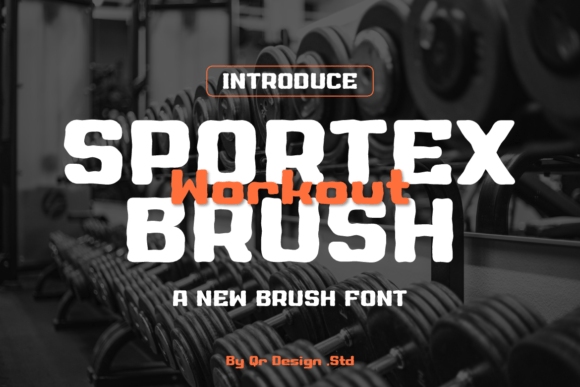
Sportex Workout Brush Font: The Ultimate Choice for Designers
In the world of design, fonts play a crucial role in conveying the message and tone of a project. With millions of fonts available, finding the perfect one can be overwhelming. However, if you’re looking for a bold, all-caps sans serif font that exudes trendiness, look no further than Sportex Workout Brush Font. In this article, we’ll dive into the features, benefits, and uses of Sportex Workout Brush Font, and explore why it’s a must-have for designers.
What is Sportex Workout Brush Font?
Sportex Workout Brush Font is a modern sans serif font that boasts a bold and eye-catching design. Its unique brush-like texture gives it a distinctive look that’s perfect for making a statement. The font features clean lines, sharp edges, and a confident demeanor that makes it perfect for a wide range of design projects.
Key Features of Sportex Workout Brush Font
- Bold and eye-catching design: Sportex Workout Brush Font is designed to grab attention. Its bold and all-caps design makes it perfect for headlines, titles, and emphasis text.
- Brush-like texture: The font features a unique brush-like texture that gives it a distinctive look and feel.
- Clean lines and sharp edges: The font’s clean lines and sharp edges make it easy to read and perfect for digital and print designs.
- Trendiness: Sportex Workout Brush Font is designed to be trendy and modern, making it perfect for designers who want to stay ahead of the curve.
- All-caps design: The font is designed specifically for all-caps text, making it perfect for titles, headlines, and emphasis text.
Benefits of Using Sportex Workout Brush Font
Sportex Workout Brush Font offers a range of benefits for designers, including:
- Versatility: The font can be used for a wide range of design projects, from digital designs to print materials.
- Readability: The font’s clean lines and sharp edges make it easy to read, even at small sizes.
- Uniqueness: The font’s brush-like texture and bold design make it stand out from more traditional fonts.
- Time-saving: The font’s all-caps design means you don’t have to worry about formatting text, saving you time and effort.
Uses of Sportex Workout Brush Font
Sportex Workout Brush Font is perfect for a wide range of design projects, including:
- Crafting: Use the font to create eye-catching titles and headings for your crafting projects.
- Digital designing: The font is perfect for digital designs, including social media graphics, blog posts, and website headers.
- Presentations: Use Sportex Workout Brush Font to create bold and eye-catching titles and headings for your presentations.
- Greeting cards making: The font is perfect for creating eye-catching titles and headings for greeting cards and invitations.
Tips for Using Sportex Workout Brush Font
Here are some tips for getting the most out of Sportex Workout Brush Font:
- Use it sparingly: While Sportex Workout Brush Font is bold and eye-catching, it can be overwhelming if used too much. Use it sparingly to create emphasis and draw attention to key text.
- Pair it with other fonts: Sportex Workout Brush Font pairs well with other fonts, including sans serif and script fonts. Experiment with different pairings to find the perfect combination for your project.
- Experiment with colors: The font’s bold design makes it perfect for use with bright and bold colors. Experiment with different color combinations to find the perfect look for your project.
Sportex Workout Brush Font is a bold, all-caps sans serif font that’s perfect for designers who want to add a touch of trendiness to their projects. With its unique brush-like texture, clean lines, and sharp edges, it’s perfect for a wide range of design projects, from digital designs to print materials. Whether you’re a seasoned designer or just starting out, Sportex Workout Brush Font is a must-have font that will take your designs to the next level.
- Is Sportex Workout Brush Font easy to read?: Yes, Sportex Workout Brush Font is designed to be easy to read, even at small sizes.